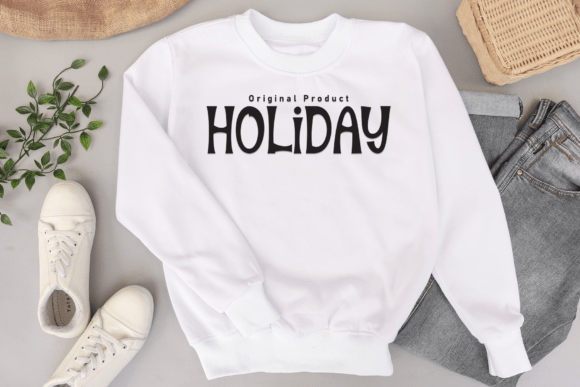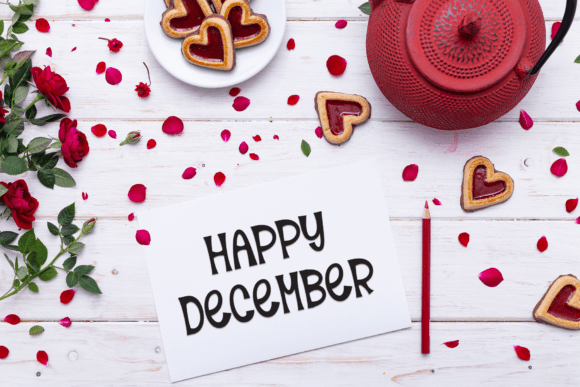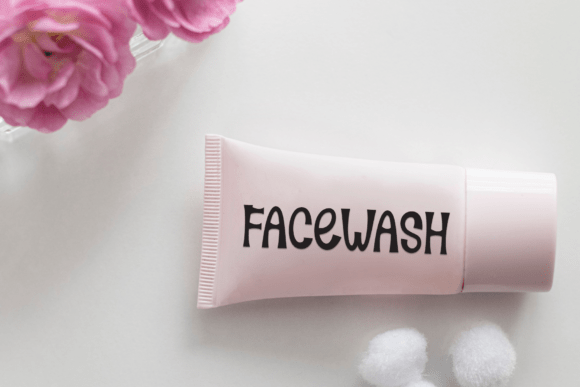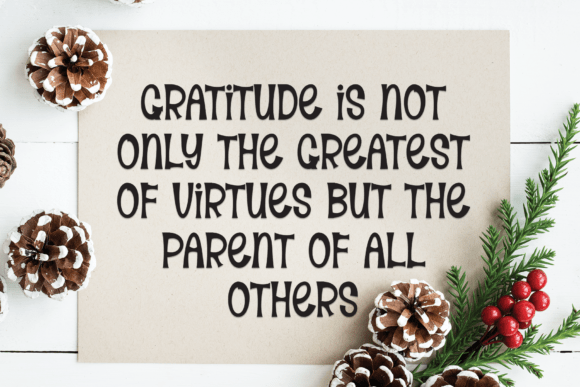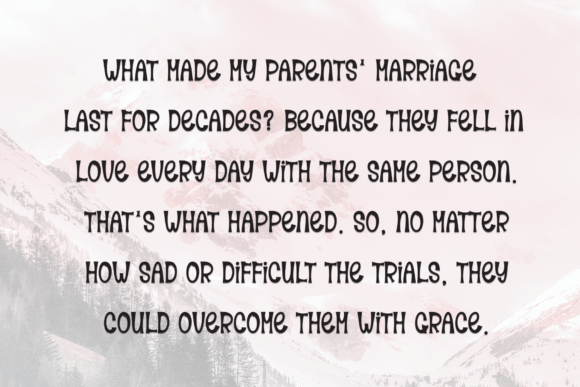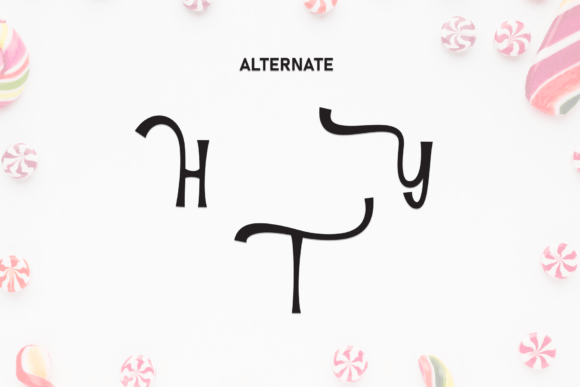
Candy Christmas Font: Add a Spoonful of Holiday Cheer to Your Designs
Are you looking for a font that embodies the playful, whimsical spirit of the holiday season? Look no further than the Candy Christmas font! This imaginative, creative, and handmade font is sure to capture the chunky, delicious fun of holiday sweets and playful typography, making it perfect for designers and crafters seeking to add a touch of festive flair to their projects.
A Unique Display Font with a Festive Twist
Candy Christmas is a unique display font that features bold, dramatically curved baseline shifts and exaggerated letter widths, creating a truly dynamic and unforgettable headline style. The thick, slightly uneven strokes enhance its charming, artisan-crafted appeal, giving it a one-of-a-kind look that’s sure to stand out. Whether you’re designing seasonal posters, holiday branding, children’s party invitations, sweet packaging, or quirky greeting cards, this font is sure to make a lasting impression.
As a designer or crafter, you’re likely always on the lookout for fonts that can help you create engaging, eye-catching projects. Candy Christmas is ideal for a variety of applications, including:
- Seasonal posters and flyers
- Holiday branding and packaging
- Children’s party invitations and decorations
- Sweet packaging and labels
- Quirky greeting cards and gift tags
A Vibrant, Cartoon-Like Aesthetic
One of the standout features of the Candy Christmas font is its vibrant, almost cartoon-like aesthetic. This playful, whimsical look ensures high engagement and a powerful festive feel, making it perfect for projects that need to be bold, colorful, and fun. Whether you’re creating a holiday-themed project for kids or adults, this font is sure to bring a smile to their faces.
Easy to Use and Accessible
Inject a Sense of Excitement and Holiday Cheer
Candy Christmas is more than just a font – it’s a way to inject a sense of excitement, delicious whimsy, and handmade holiday cheer into any project. Whether you’re a designer, crafter, or DIY enthusiast, this font is sure to inspire your creativity and help you create projects that are truly special.
Key Features of Candy Christmas Font
- Unique, handmade font with bold, dramatically curved baseline shifts and exaggerated letter widths
- Thick, slightly uneven strokes for a charming, artisan-crafted appeal
- Ideal for seasonal posters, holiday branding, children’s party invitations, sweet packaging, and quirky greeting cards
- Vibrant, almost cartoon-like aesthetic for high engagement and a powerful festive feel